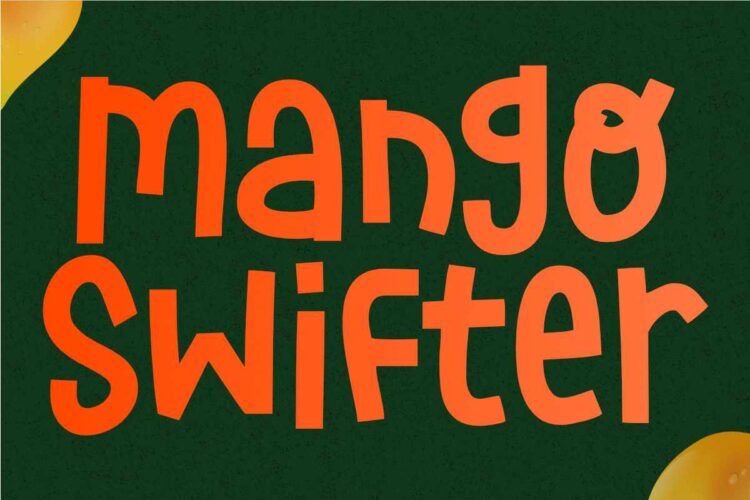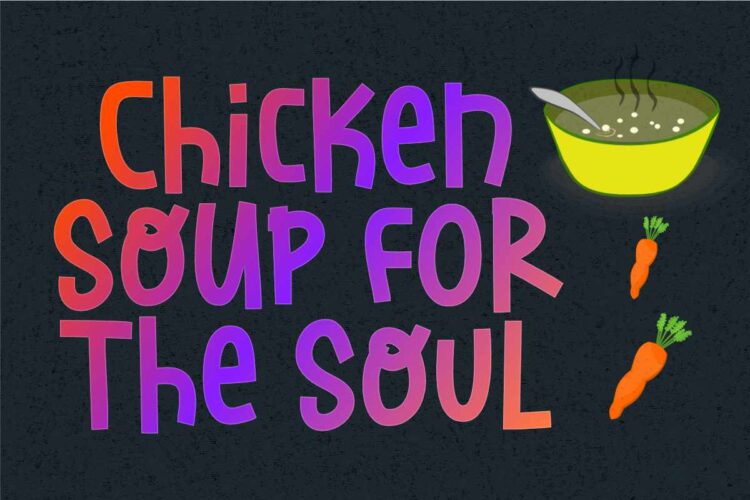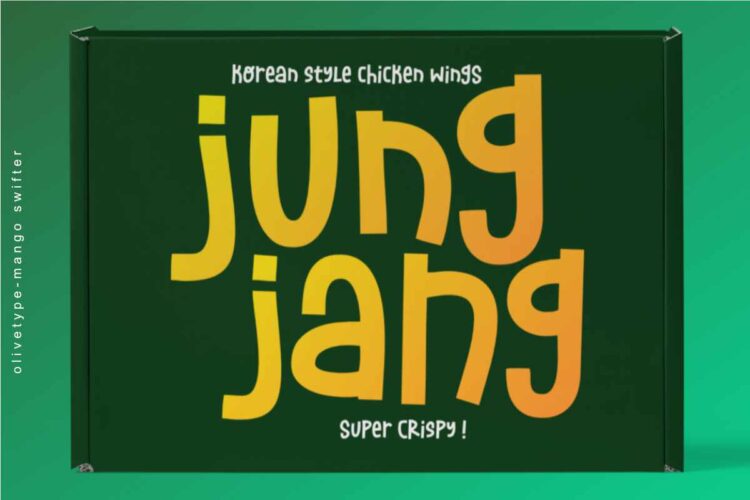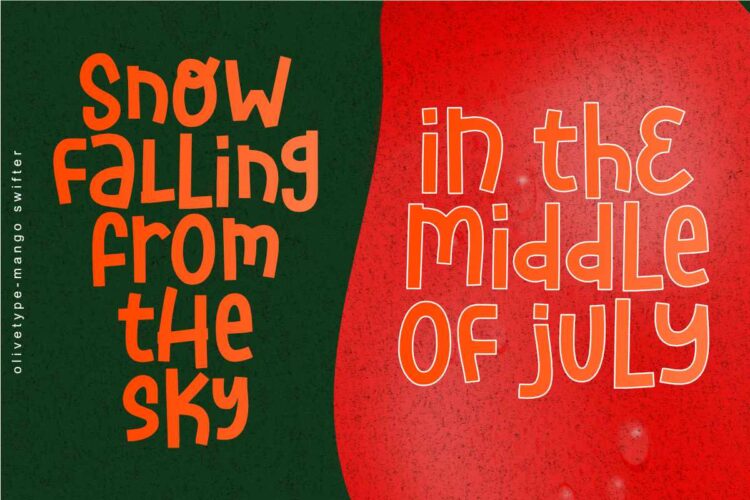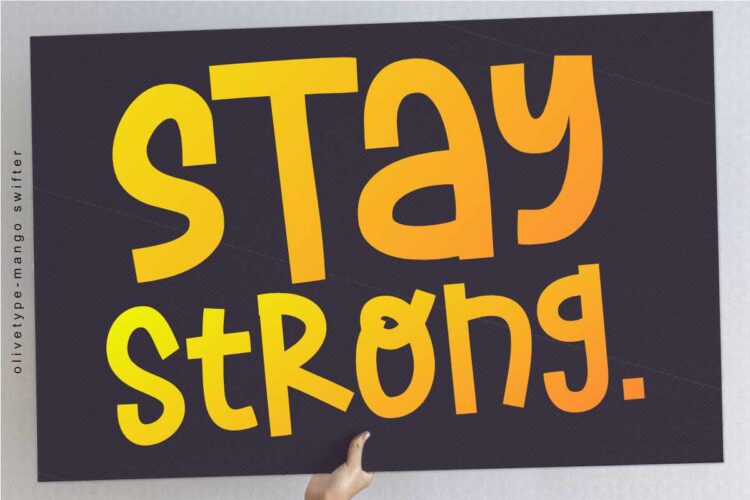
Mango Swifter is a fun and playful display font that’s perfect for logotypes, headlines, and product packaging. It’s bold and eye-catching, and it will add a touch of personality to any design.